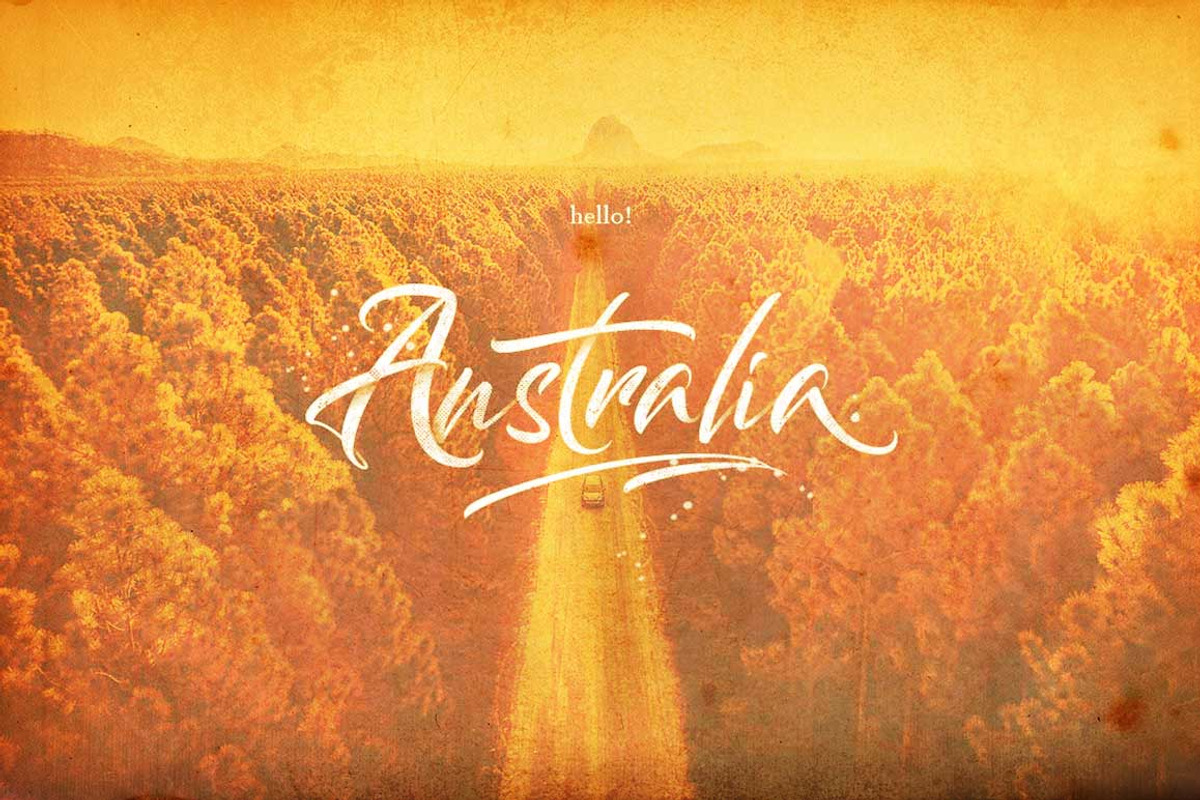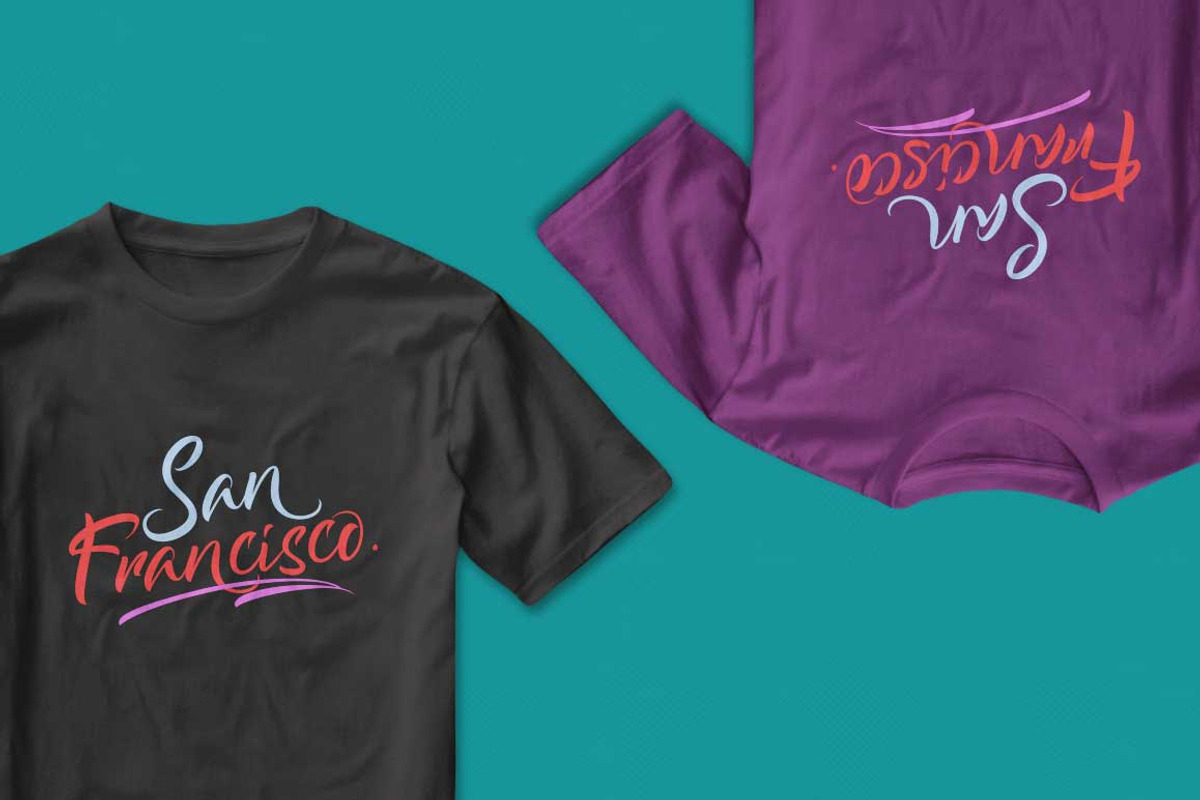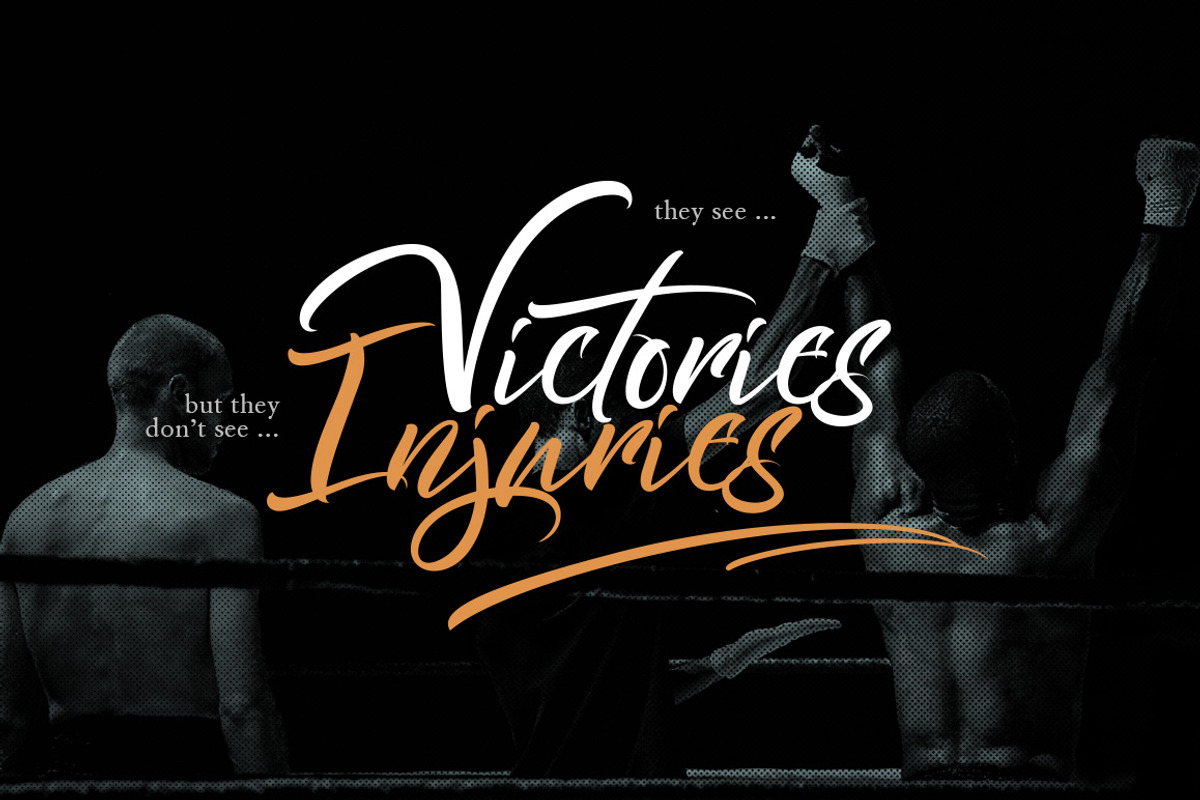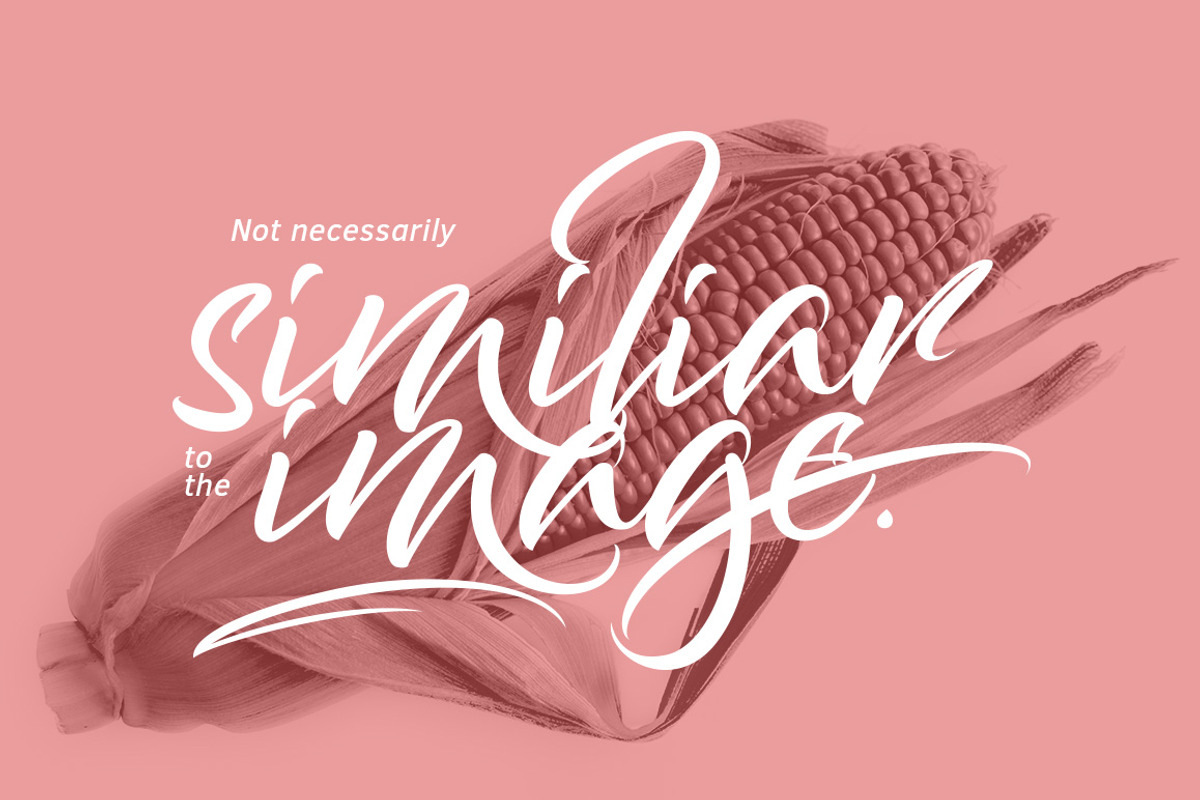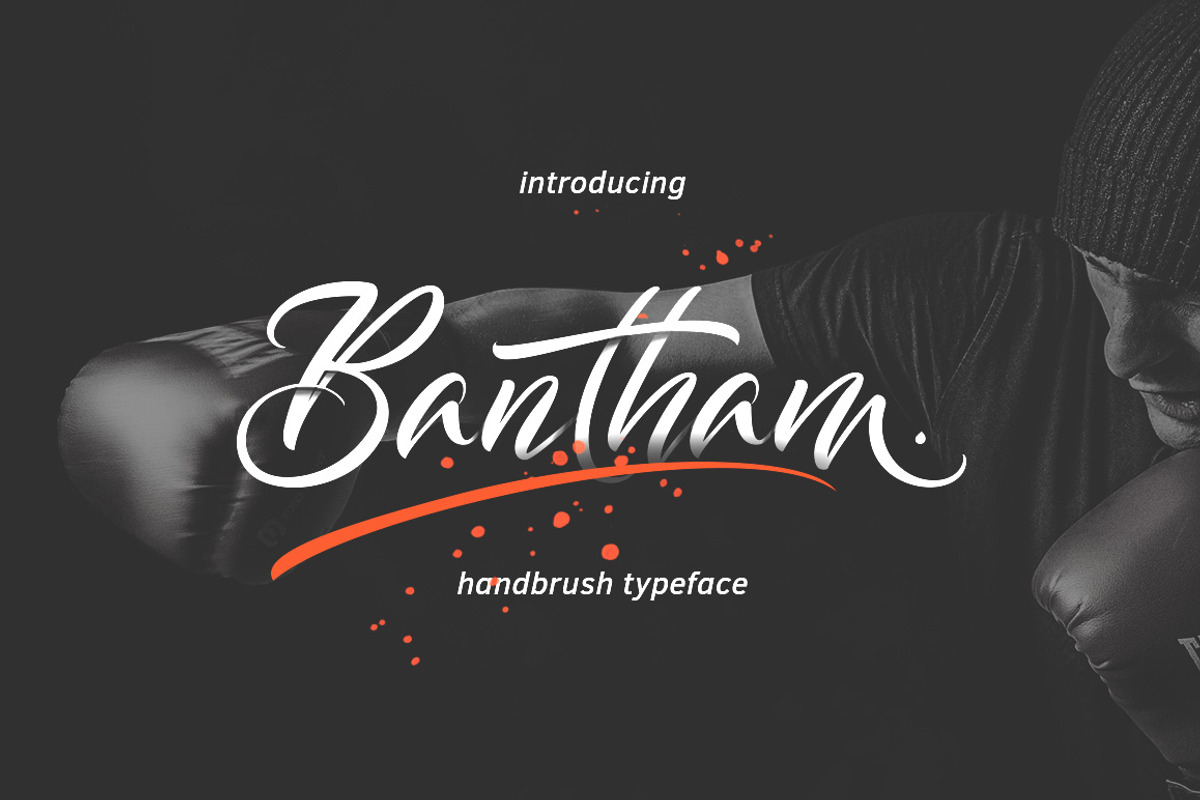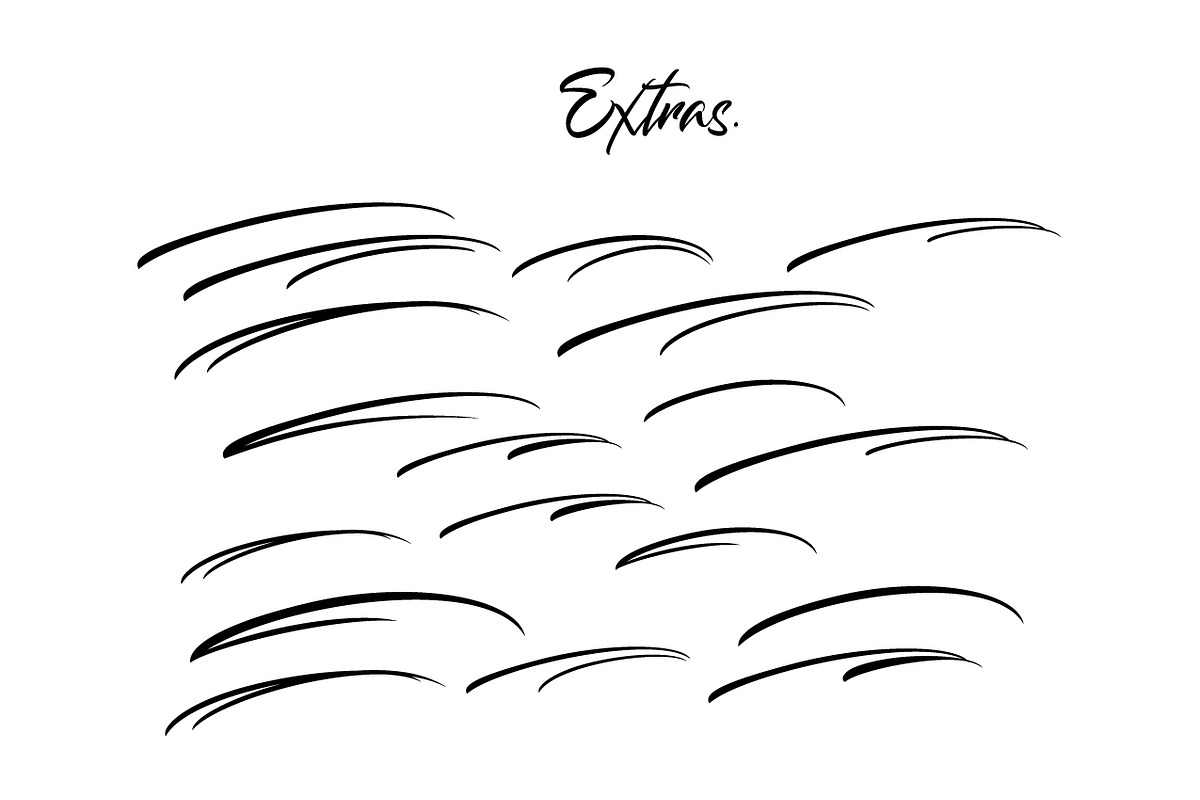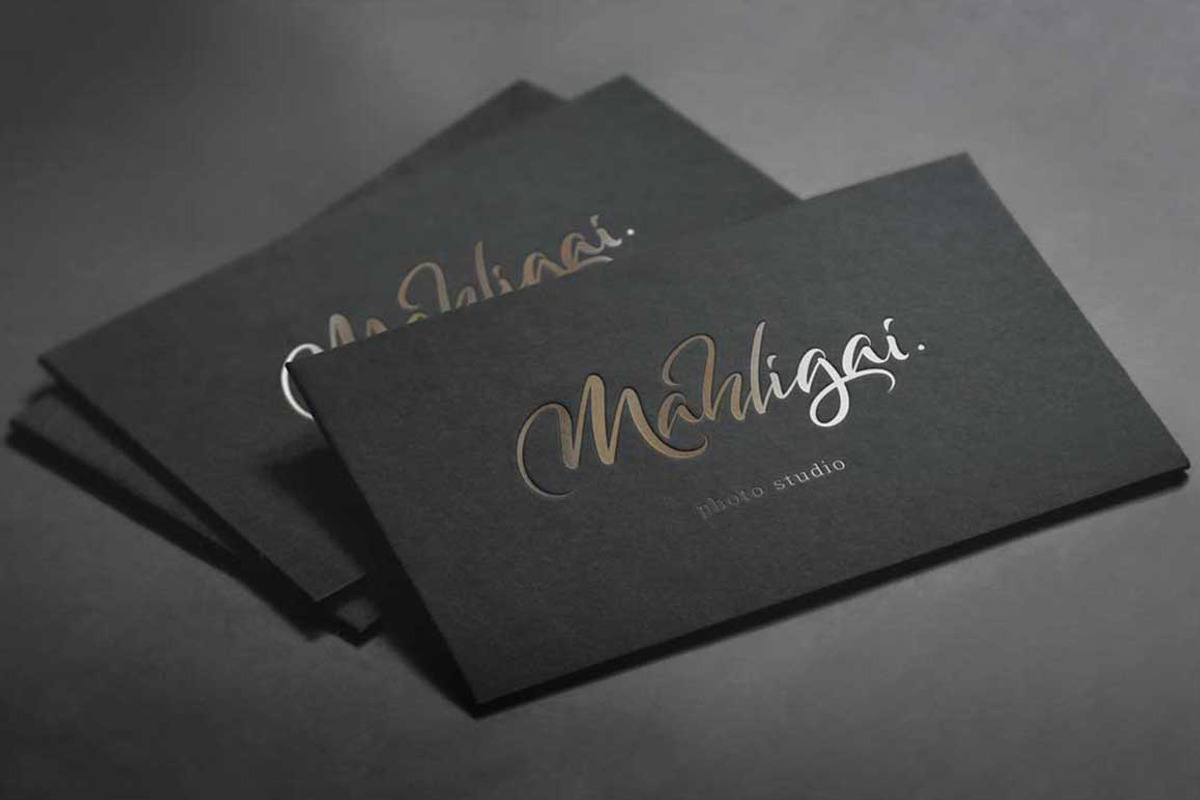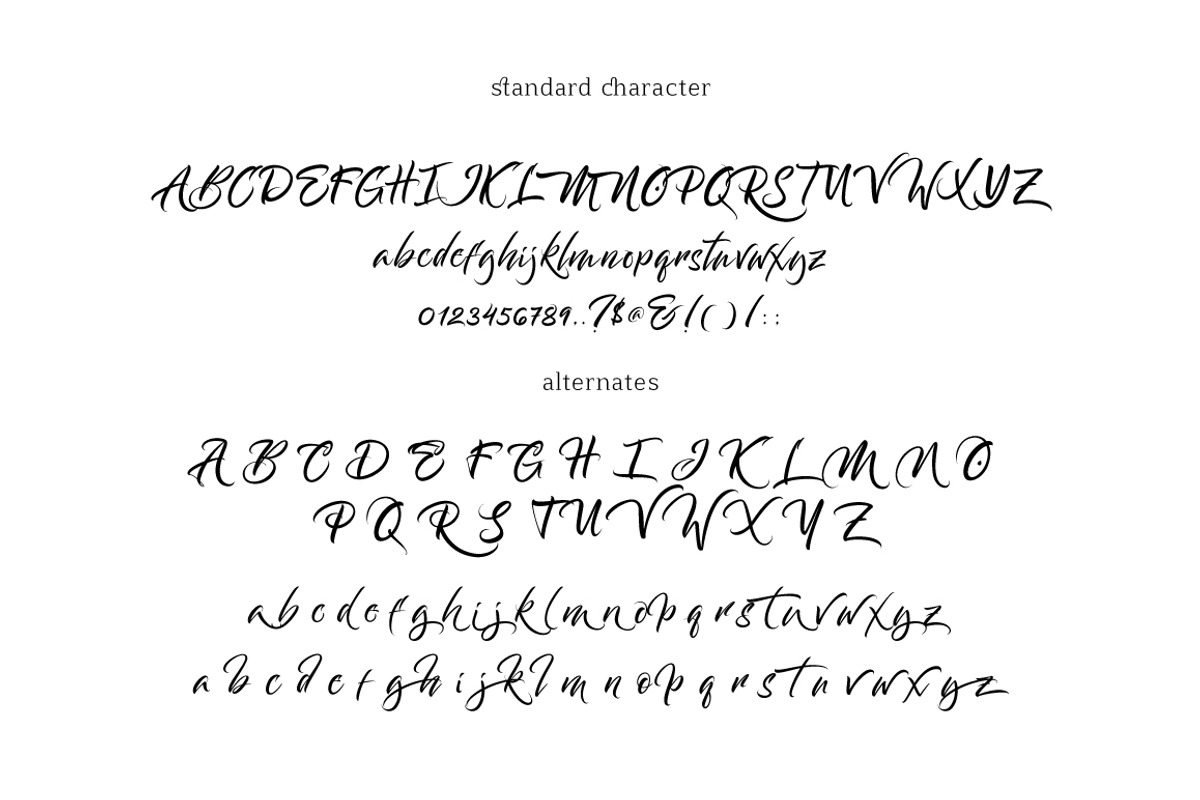
Bantham Typeface
Hello...!! Great to see you :). Welcome to my new typeface. This is Bantham Typeface, the display handbrush lettering, simple and easy to create awesome lettering, just type your words and then you will immediately see the great results.
Bantham Typeface, is handbrush font, every single letters have been carefully crafted to make your text looks beautiful. With modern style this font will perfect for many different project ex: quotes, blog header, poster, wedding, branding, logo, fashion, apparel, letter, invitation, stationery, etc.
The Bantham Typeface features:
Uppercase & lowercase
Stylistic alternatives & swashes
International characters (Multilingual)
Punctuation & symbols
- Uppercase & lowercase
- Stylistic alternatives & swashes
- Initials & finals
- International characters (Multilingual)
- Punctuation & symbols
- Extras Vector
Bantham Typeface by Thirtypath Studio fits naturally into Branding, posters, packaging, typography.